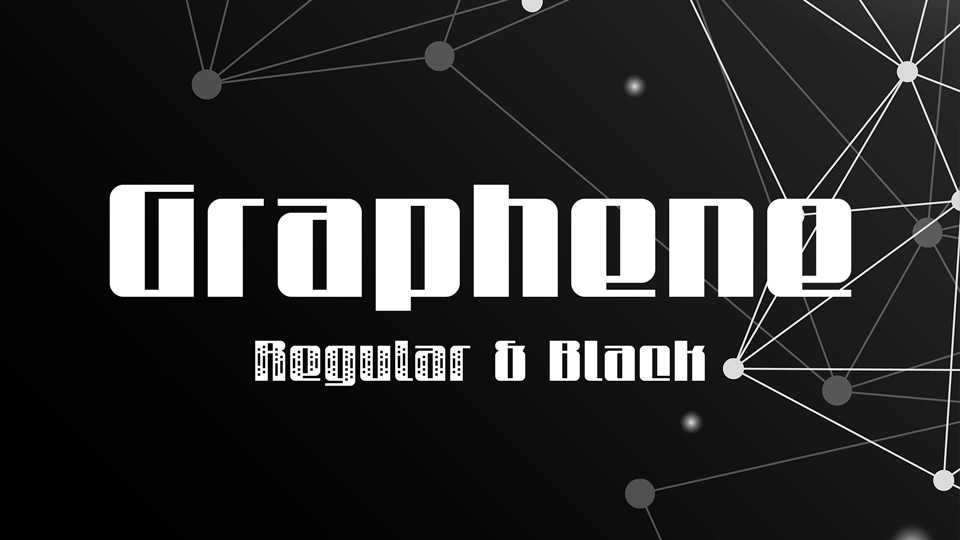
Download Graphene typeface, a bold and strong high contrast font family in two styles: Regular with experimental pattern-fill design, and Black for headlines and posters.